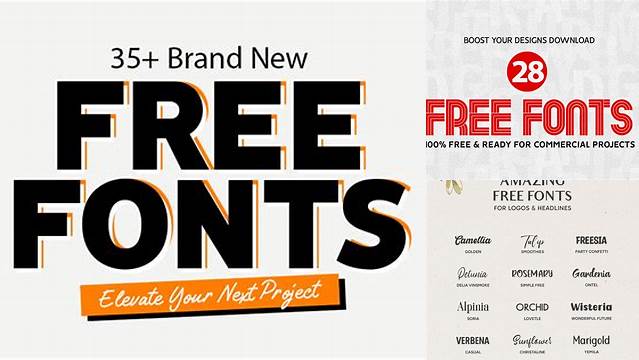
New Free Fonts: Your Ultimate Guide To Fresh Typography
Hey guys! Finding the perfect font can be a game-changer for any design project. Whether you're working on a website, presentation, or marketing materials, typography plays a crucial role in conveying your message effectively. The good news is, there's a treasure trove of new free fonts out there just waiting to be discovered. In this article, we'll dive deep into the world of typography and explore 30 amazing subtopics related to new free fonts to help you level up your design game. So, buckle up and let's get started!
1. Latest Slab Serif Fonts Available for Free
Slab serif fonts, with their bold and sturdy appearance, are perfect for headlines and display text. They exude confidence and make a strong statement. Exploring the latest slab serif options can add a touch of vintage charm or modern edge to your projects. Finding new free fonts in the slab serif category means you can experiment with different styles without breaking the bank. Imagine using a bold slab serif for your website's headings, instantly grabbing the visitor's attention. Or perhaps incorporating a more refined slab serif in your branding materials to convey a sense of reliability and professionalism. It's all about finding the right balance and knowing what impact you want to create. Remember, the key is to choose a font that not only looks great but also aligns with your brand's personality and the message you want to communicate. The world of typography is vast, and slab serifs offer a unique and powerful way to express yourself. So, dive in and discover the latest new free fonts that the slab serif family has to offer, and watch your designs come to life with a fresh, impactful look. Don't be afraid to mix and match different slab serif styles, pairing bold ones with lighter ones for contrast, or even combining them with sans-serif fonts for a modern twist. The possibilities are endless, and with so many new free fonts available, you're sure to find the perfect fit for your next project.
2. Trending Sans-Serif Fonts You Can Download for Free
Sans-serif fonts are known for their clean and modern look, making them incredibly versatile for various design applications. From body text to logos, a good sans-serif font can bring clarity and readability to your project. Keeping up with the new free fonts in the sans-serif category is crucial for staying current with design trends. These fonts often convey a sense of simplicity and efficiency, making them ideal for tech-related companies or modern brands. The beauty of sans-serif fonts lies in their adaptability. You can use them in a wide range of contexts, from website headers and navigation menus to print materials like brochures and business cards. Their clean lines and minimalist design make them easy to read on screens and in print, ensuring your message gets across clearly. When you're exploring new free fonts in the sans-serif family, consider the different weights and styles available. A light sans-serif might be perfect for a delicate, minimalist design, while a bold sans-serif can make a statement and grab attention. You can also experiment with different font pairings, combining a bold sans-serif for headings with a lighter sans-serif for body text, or even pairing it with a serif font for a more sophisticated look. With so many new free fonts available in the sans-serif category, you have the freedom to experiment and find the perfect typeface to elevate your design and create a lasting impression.
3. Free Script Fonts for Elegant Designs
Script fonts add a touch of elegance and personality to any design. They mimic handwriting, giving a human and artistic feel to your projects. Discovering new free fonts in the script category allows you to infuse your work with character and charm. Whether you're designing wedding invitations, logos, or social media graphics, script fonts can make a significant impact. There are different types of script fonts, ranging from formal and calligraphic to playful and casual, each offering a unique aesthetic. Formal scripts are perfect for elegant occasions and upscale branding, while casual scripts are great for creating a friendly and approachable vibe. When choosing a script font, consider its readability and how it will pair with other fonts in your design. Script fonts are often best used for headings and short phrases, as they can be challenging to read in large blocks of text. Pairing a script font with a simple sans-serif or serif font can create a beautiful contrast and ensure your message is clear. With so many new free fonts in the script category, you can find the perfect typeface to add a touch of sophistication and personality to your designs. Explore different styles, weights, and variations to discover the script font that best reflects your vision and helps you create stunning visuals that captivate your audience.
4. Unique Display Fonts Available for No Cost
Display fonts are designed to grab attention and make a statement. They often have distinctive characteristics and are perfect for headlines, posters, and branding materials. Exploring new free fonts in the display category can help you find that perfect font to make your project stand out. These fonts come in a wide variety of styles, from bold and geometric to quirky and playful, allowing you to create unique and memorable designs. Display fonts are not meant for long blocks of text; instead, they excel at creating visual impact in headlines and short phrases. They can convey a specific mood or personality, making them essential tools for branding and marketing. When choosing a display font, consider the overall tone and message of your project. A bold, futuristic display font might be perfect for a tech company, while a whimsical, hand-drawn font could be ideal for a children's book. Don't be afraid to experiment with different styles and combinations to find the perfect match. With the abundance of new free fonts available in the display category, you can explore endless possibilities and create designs that are both visually stunning and highly effective. Remember to balance the display font with more readable fonts for body text to ensure your message is clear and accessible. The right display font can transform your design from ordinary to extraordinary, leaving a lasting impression on your audience.
5. Free Monospace Fonts for Coding and Design
Monospace fonts, where each character takes up the same amount of horizontal space, are essential for coding and technical documentation. They also have a unique aesthetic that can be used creatively in design projects. Discovering new free fonts in the monospace category is crucial for both developers and designers. These fonts ensure that code is easily readable and that columns align correctly in text editors and IDEs. But monospace fonts aren't just for coding; they can also bring a retro or futuristic vibe to design projects. Their consistent width gives them a distinct look that can be used to create interesting visual effects and typography. When choosing a monospace font for coding, prioritize readability and clarity. Look for fonts with clear distinctions between characters like 'i', 'l', and '1', and characters like '0' and 'O'. For design projects, consider the overall tone and style you want to convey. A sleek, modern monospace font can be perfect for a tech-related website, while a more quirky monospace font might be ideal for a retro-themed poster. With the increasing availability of new free fonts in the monospace category, you have plenty of options to choose from. Whether you're a developer looking for a comfortable coding font or a designer seeking a unique typeface, exploring the monospace world can open up new possibilities for your work. The key is to find a font that not only serves its functional purpose but also adds a touch of personality to your projects.